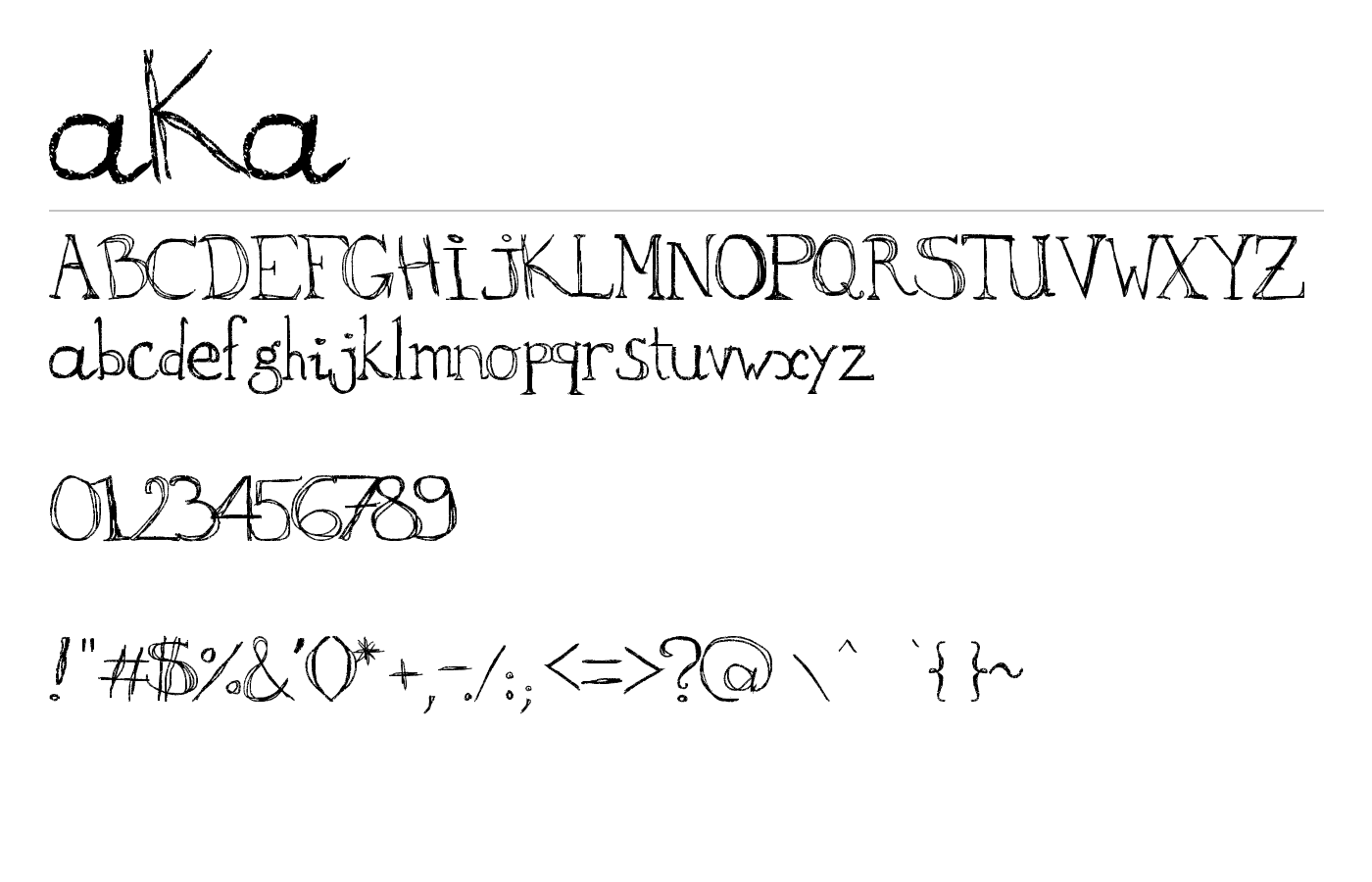
aKa Font is a whimsical, hand-drawn serif typeface with a light and airy feel, featuring irregular, sketch-like strokes that give it a playful and artistic character. Its tall, narrow letterforms with slight contrast and unique quirky details make it ideal for creative projects, casual branding, and editorial designs that seek a charming, handcrafted touch. This font works best in headlines, logos, and packaging where a distinctive, informal style is desired.
aKa Font
About aKa Font